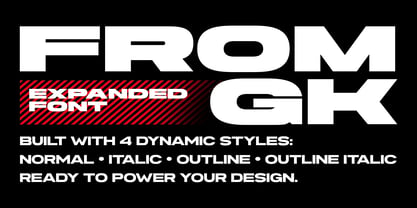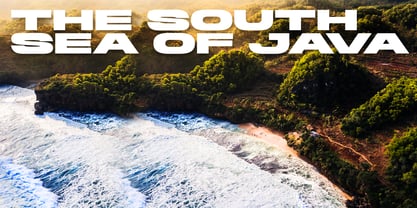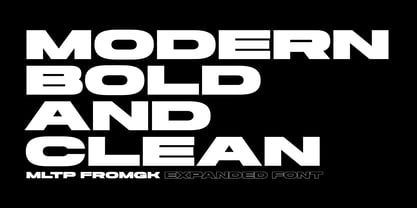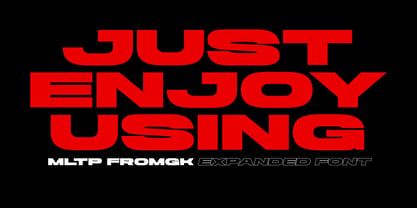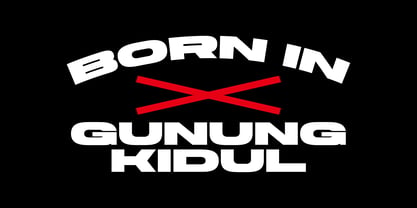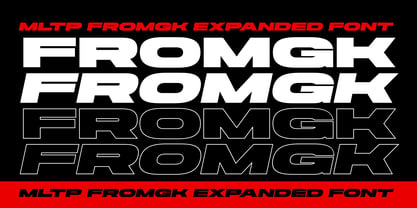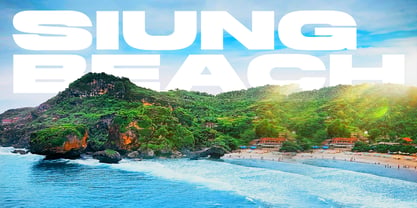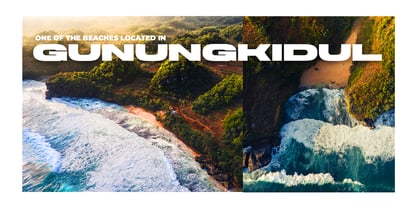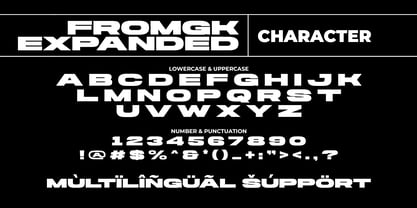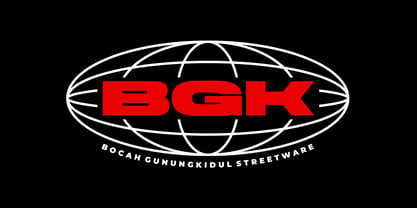
MLTP Fromgk Expanded
The MLTP Fromgk Expanded Font Family was designed by Mulia Yanto and published by Multype Studio. MLTP Fromgk Expanded contains 4 styles and family package options. More about this family
MLTP Fromgk Expanded is a bold futuristic expanded font built to deliver maximum impact for modern branding, racing visuals, streetwear, posters, esports, music covers, logos, headlines, and high-energy design projects. Featuring strong geometric forms, aggressive wide proportions, and clean modern cuts, this typeface instantly creates a powerful and premium visual presence.
Comes with 4 dynamic styles: Regular, Italic, Outline, Outitalic
Perfect for: Racing Design, Automotive, Gaming, Sports, Technology, YouTube Thumbnails, Posters, Apparel, Branding, Urban Design, Social Media Graphics
MLTP Fromgk Expanded ( Regular, Italic, Outline, and Outitalic )
Numbers & Symbols
PUA Encoded Characters
Multilingual support
MLTP Fromgk Expanded is designed to power bold visuals and make your typography stand out instantly.